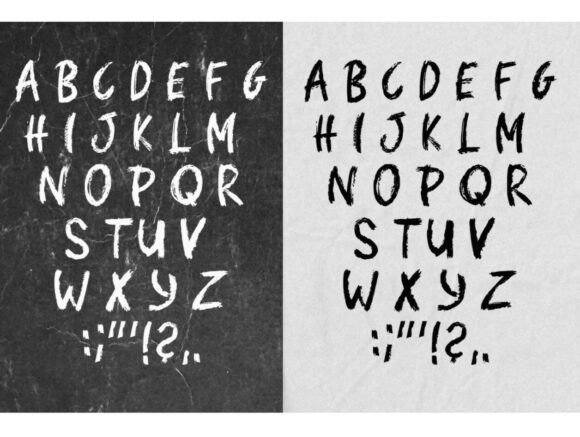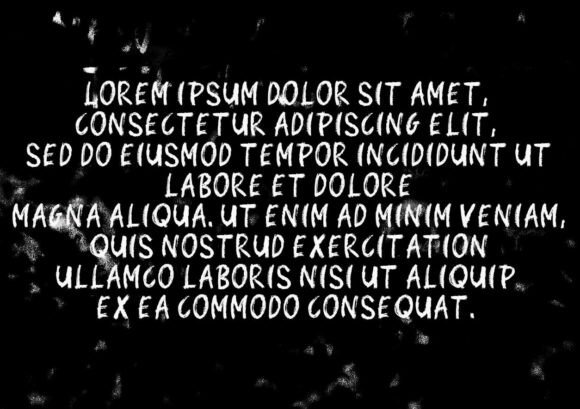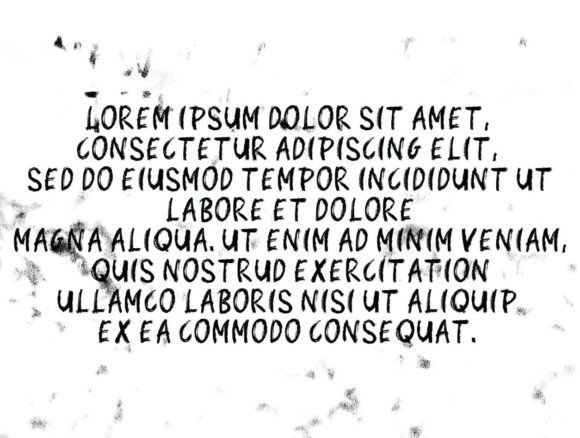
Unleash Dynamic Movement with Charki: The Ultimate Handwritten Brush Font
Are you tired of using the same old fonts that lack personality and flair? Look no further than Charki, a revolutionary new handwritten brush font that’s about to take your designs to the next level. With its raw, dynamic movement and striking texture, Charki is the perfect choice for designers and crafters looking to add a gritty, urban, or spontaneous feel to their work.
The Inspiration Behind Charki
Charki’s unique design is inspired by the look of dry brush or a heavy marker, with quick, ragged strokes that are full of character. This distinctive texture gives Charki a one-of-a-kind feel that’s perfect for creating eye-catching headers, social media quotes, edgy branding, music album covers, and fashion photography titles.
Key Features of Charki
• Raw, Dynamic Movement: Charki’s strokes are quick and ragged, giving it a sense of energy and spontaneity that’s perfect for capturing the attention of your audience.
• Striking Texture: The font’s texture is reminiscent of dry brush or a heavy marker, adding a tactile feel to your designs.
• Handwritten with Character: Charki’s handwritten strokes are full of personality, making it perfect for adding a human touch to your designs.
• Versatile: Charki is suitable for a wide range of design applications, from headers and social media quotes to edgy branding, music album covers, and fashion photography titles.
Charki is a game-changer for designers and crafters looking to add a unique touch to their work. Whether you’re creating:
• Headers and Titles: Use Charki to create eye-catching headers and titles that grab attention and add a touch of personality to your designs.
• Social Media Quotes: Add a dynamic, energetic feel to your social media quotes with Charki’s striking texture and handwritten strokes.
• Edgy Branding: Use Charki to create bold, edgy branding that sets your brand apart from the competition.
• Music Album Covers: Add a gritty, urban feel to your music album covers with Charki’s raw, dynamic movement.
• Fashion Photography Titles: Use Charki to create stylish, eye-catching titles for your fashion photography projects.
Tips for Using Charki
To get the most out of Charki, try the following tips:
• Experiment with Different Sizes: Charki looks great in a variety of sizes, from small and subtle to large and bold.
• Play with Color: Try pairing Charki with a range of colors to add depth and interest to your designs.
• Mix and Match with Other Fonts: Combine Charki with other fonts to create a unique, eye-catching look.